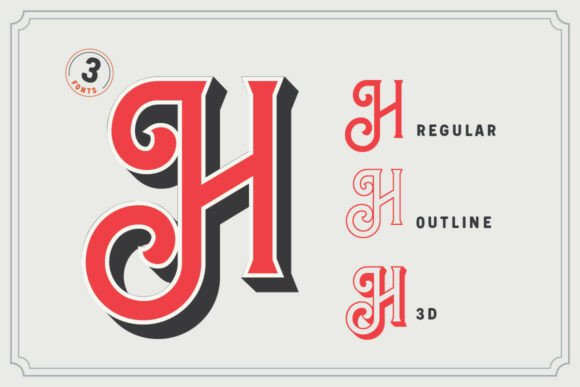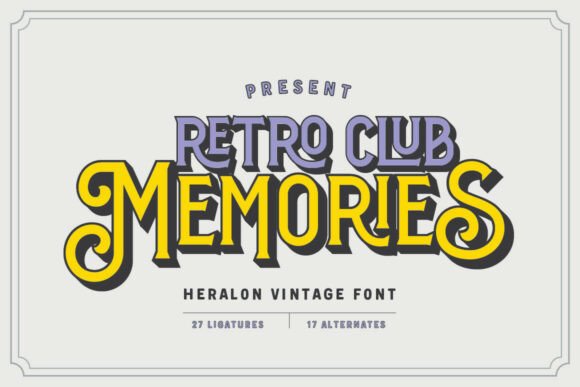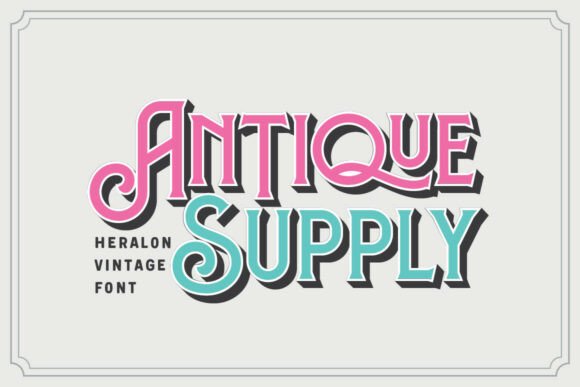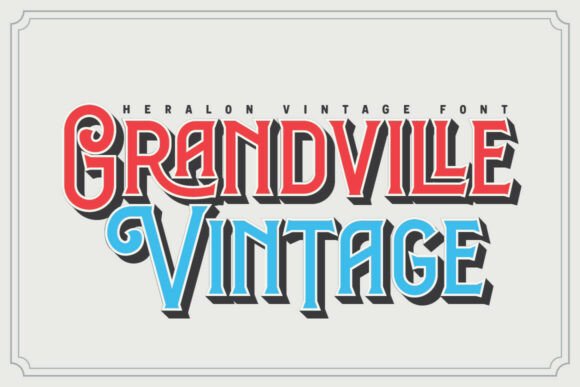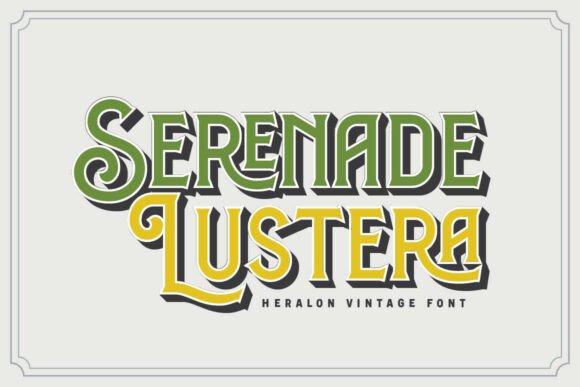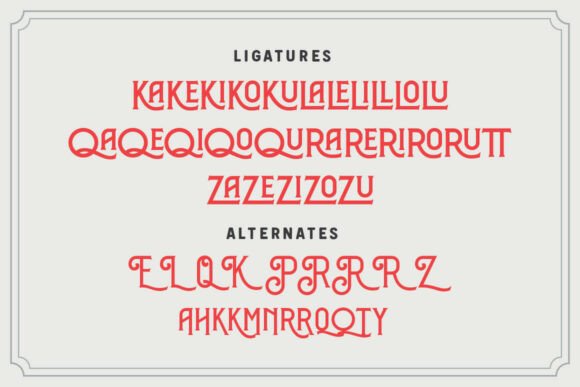
Introduction to Heralon Font
Heralon is a layered vintage serif font designed to bring bold and stylish impact to your projects.
Featuring 3 unique styles (Regular, 3D, and Outline), this font allows you to mix and match for stunning layered typography It comes with 26 ligatures and 21 stylistic alternates, giving you endless creative possibilities.
Key Features of Heralon Font